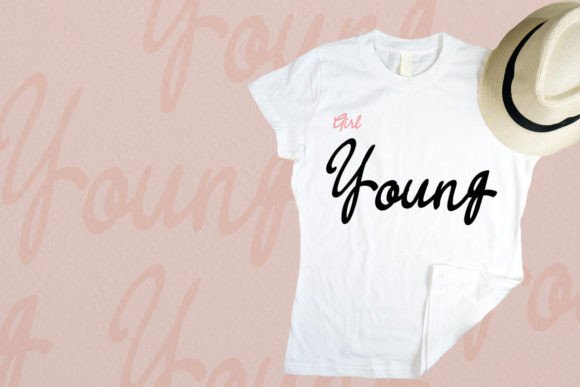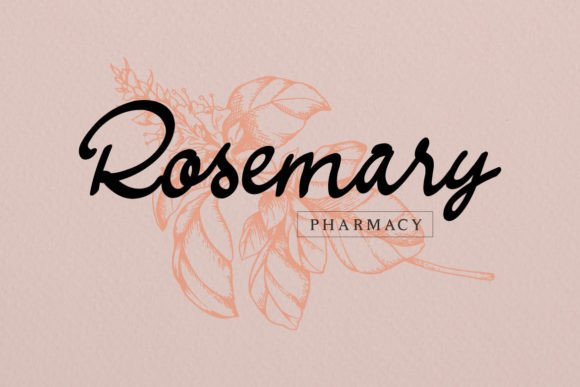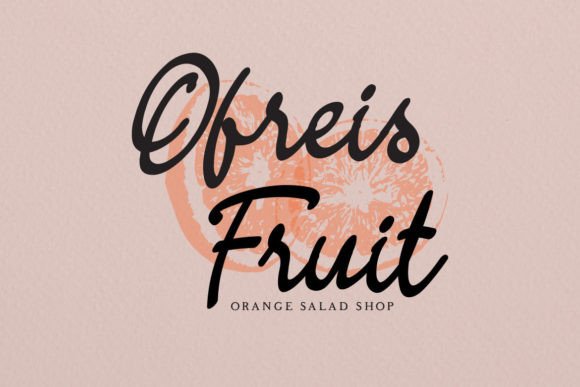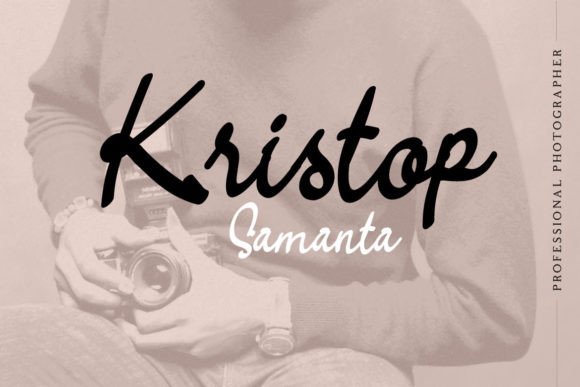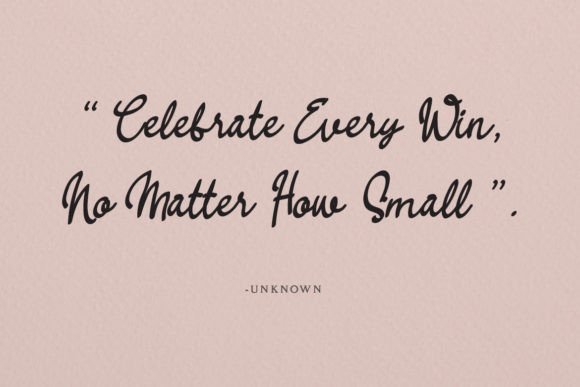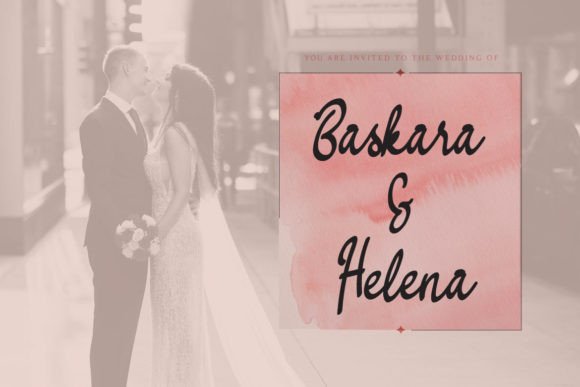
Introduction to Medicca Font
Do you remember the thrill of creating something from scratch? The rush of ideas, the excitement of bringing a concept to life? For designers, this feeling is what drives them to push boundaries and explore new possibilities. And for those seeking the perfect tool to bring their vision to reality, the Medicca Font is an invaluable resource.
With its unique blend of modern script and vintage charm, the Medicca Font is the perfect addition to any creative project. Its natural, effortless style makes it an ideal choice for designers looking to add a touch of sophistication to their work. Whether it’s a logo, invitation, or packaging design, the Medicca Font is sure to make a lasting impression.
Key Features of Medicca Font
- High-quality, elegant script font ideal for creative projects, such as wedding invitations, quotes, and other design elements.
- Unique characteristics include swashes, flourishes, and connecting strokes, adding a touch of elegance to any design.
Honest Review: Medicca Font
As a designer, I’m always on the lookout for high-quality fonts to elevate my creative projects. Medicca Font is one of the many free downloads I’ve come across, and I must say, it’s a gem. ✨
- Medicca Font offers a unique and elegant style that’s perfect for various design projects.
- The font family includes multiple weights, from light to bold, making it easy to find the right fit for your design.
- One of the standout features of Medicca Font is its transparent background, which makes it easy to overlay on images and backgrounds.
However, I did notice a few limitations. ⚠️ The font may not be suitable for small text sizes, as it can become difficult to read. Additionally, the font family may not be as extensive as some other popular fonts.
Overall, I’m impressed with Medicca Font’s high quality and versatility. It’s a great addition to any designer’s arsenal, especially for those working on creative projects where a elegant, sophisticated look is desired.
Getting the Most Out of Medicca Font
To get the most out of Medicca Font, consider the following tips:
- Use the font in conjunction with a transparent background for a clean and modern look.
- Combine Medicca Font with other high-quality design resources for a cohesive look.
Medicca Font is ideal for a variety of creative projects, including:
- Business logos and branding materials.
- Marketing materials, such as brochures and flyers.
- Digital presentations and reports.
Alternatives to Medicca Font